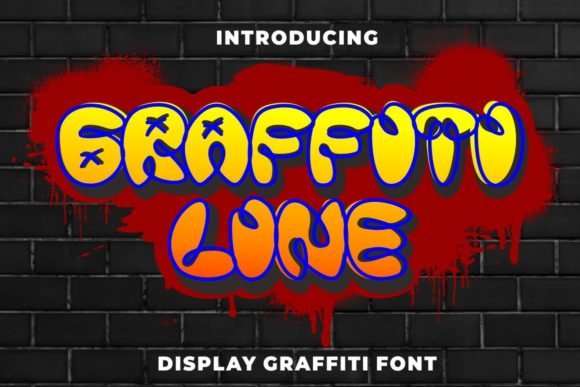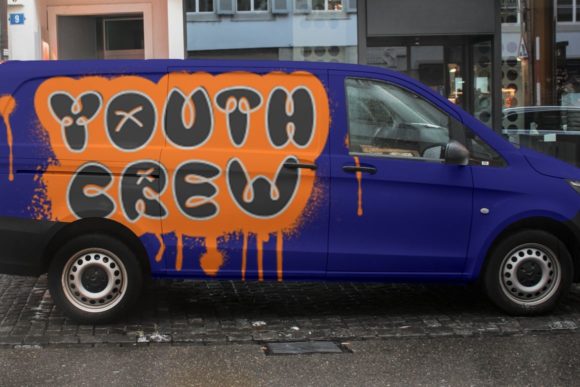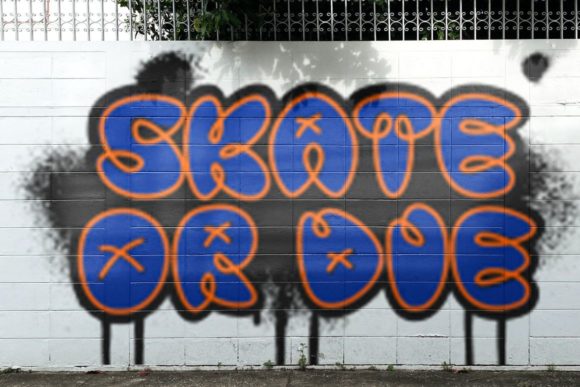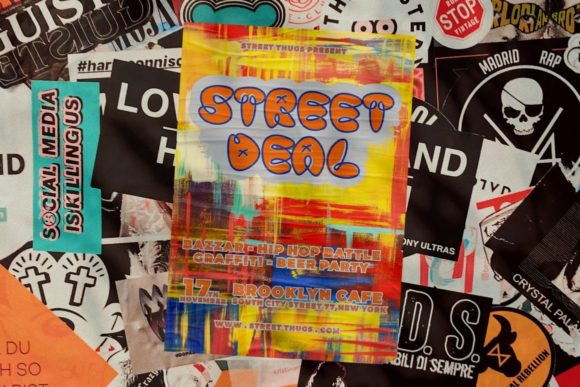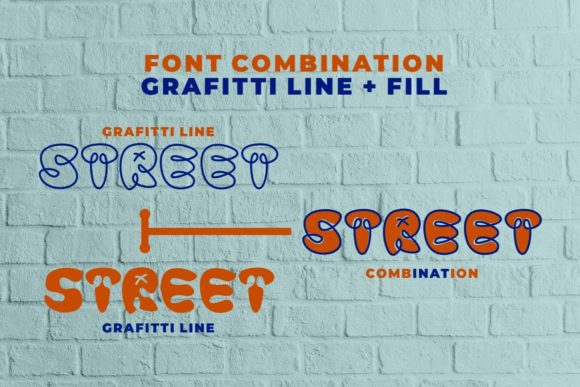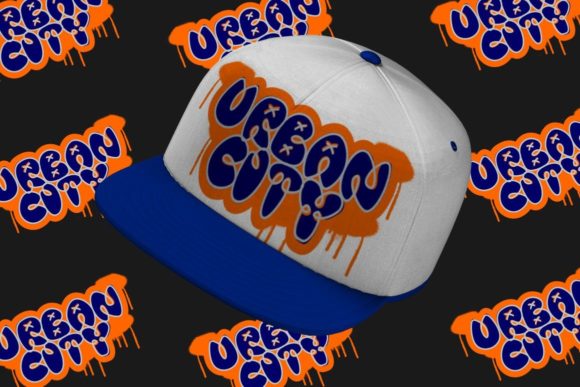
The Street Art of Typography
Have you ever been walking down a city street, surrounded by the vibrant colors and eclectic energy of street art, and thought, “I wish I could capture this feeling in my design work?” For designers and creatives, the urban landscape can be a constant source of inspiration – and now, with the Graffiti Line Font, you can bring that energy to your projects.
This display font is designed to evoke the raw, expressive spirit of graffiti art, making it the perfect tool for anyone looking to add a bit of edginess to their designs. With its extensive ligatures and PUA encoding, the Graffiti Line Font gives you the freedom to create bold, eye-catching headlines and graphics that will make your work stand out. Whether you’re working on a branding project, packaging design, or simply looking to add some street cred to your portfolio, this font is a valuable addition to any designer’s toolkit.
Graffiti Line Font Key Features
- Character Count: The font contains a total of 230 characters, including uppercase and lowercase letters, numbers, and special characters, providing a wide range of creative possibilities.
- Font Size and Resolution: Graffiti Line Font is designed to work optimally at font sizes ranging from 10 to 100 points, with a recommended resolution of 300 DPI for print materials and 72 DPI for digital applications.
- Unique Characteristics: This font features a unique graffiti-inspired design with bold lines, rounded edges, and a playful feel, making it perfect for creating eye-catching and modern designs.
- Font Style: Graffiti Line Font is available in a single style, which is ideal for creating bold and attention-grabbing headlines, titles, and other text elements.
- Language Support: The font supports a wide range of languages, including English, Spanish, French, German, Italian, and many others, allowing designers to create multilingual designs with ease.
Graffiti Line Font Review
I recently had the chance to work with the Graffiti Line Font, and I wanted to share my honest thoughts on this unique font. Overall, I was quite impressed with its edgy vibe and creative possibilities.
- Edgy, street-art inspired aesthetic that’s perfect for modern designs.
- Highly customizable, allowing designers to tailor the font to their specific project needs.
- Supports a wide range of languages, making it a versatile option for global designs.
However, there are some limitations: ⚠️
- May not be suitable for traditional or conservative designs, as its bold and graffiti-inspired style can be quite jarring.
- Some characters may not render well at smaller font sizes, requiring designers to adjust font sizes or styles to achieve optimal results.
- Lacks a comprehensive set of ligatures, which can make text layout and formatting a bit more challenging.
Overall, I think Graffiti Line Font is a great option for designers looking to add some edge and creativity to their projects. While it may not be suitable for every design style or application, its unique features and customization options make it a valuable addition to any font collection.
Graffiti Line Font: A Practical Application Guide
Tips for Getting the Most Out of the Graffiti Line Font
Use the Graffiti Line Font to add a touch of urban flair to your designs. Experiment with different font sizes, colors, and styles to create a unique look.
Combine the Graffiti Line Font with other fonts to create a visually appealing contrast.
The Graffiti Line Font is perfect for:
Streetwear and urban-themed designs
Music and entertainment branding
Street art and graffiti-inspired designs